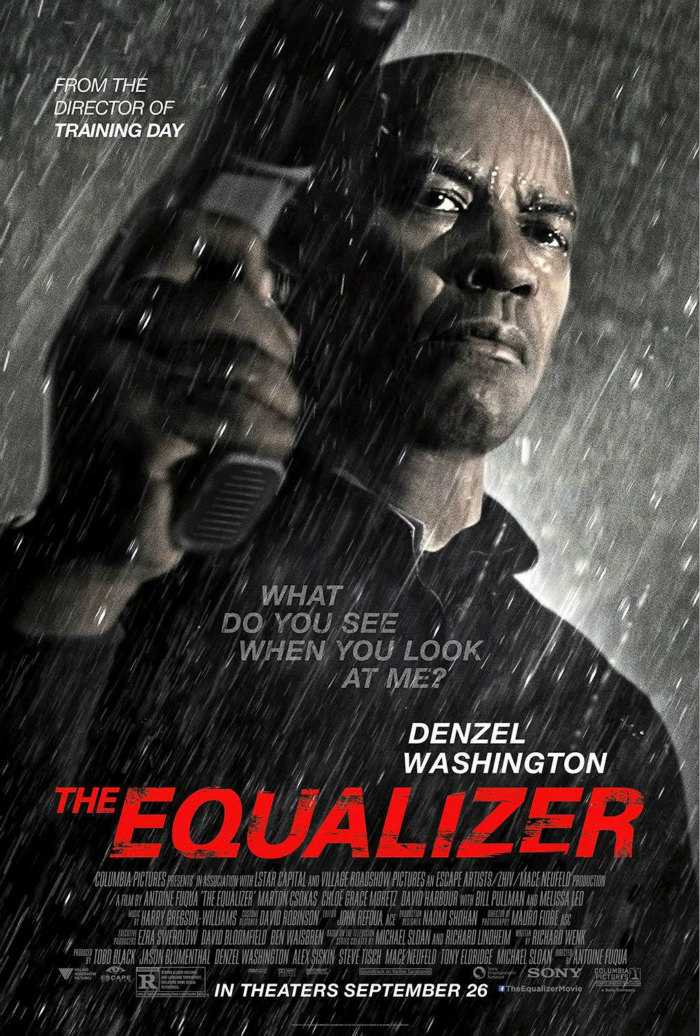
The Equalizer (film) Font
ActionThe Equalizer is an action thriller film released in 2014, directed by Antoine Fuqua and starring Denzel Washington. It follows a retired CIA operative who becomes a vigilante, using his skills to help a young woman escape the clutches of Russian mobsters.
The film title "The Equalizer" on the poster features the elegant typeface Univers Black Oblique, a neo-grotesque sans-serif font introduced in 1957. You can view and download the font here.